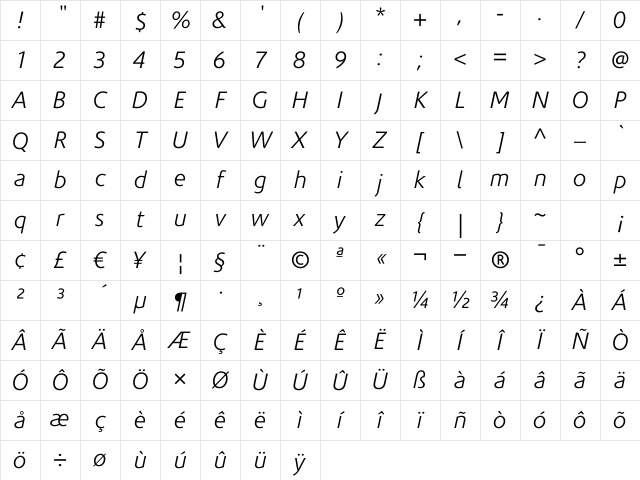
CorisandeLight Italic Regular
Design Context for CorisandeLight Italic
CorisandeLight Italic is a composed and adaptable typeface that performs quietly and consistently across a wide range of design contexts. The slanted form adds forward momentum and visual energy. Its slender proportions lend an understated elegance to any composition.
Pro Tip: Use CorisandeLight Italic for emphasis, pull quotes, and subheadings where its slanted energy can add rhythm to the layout.